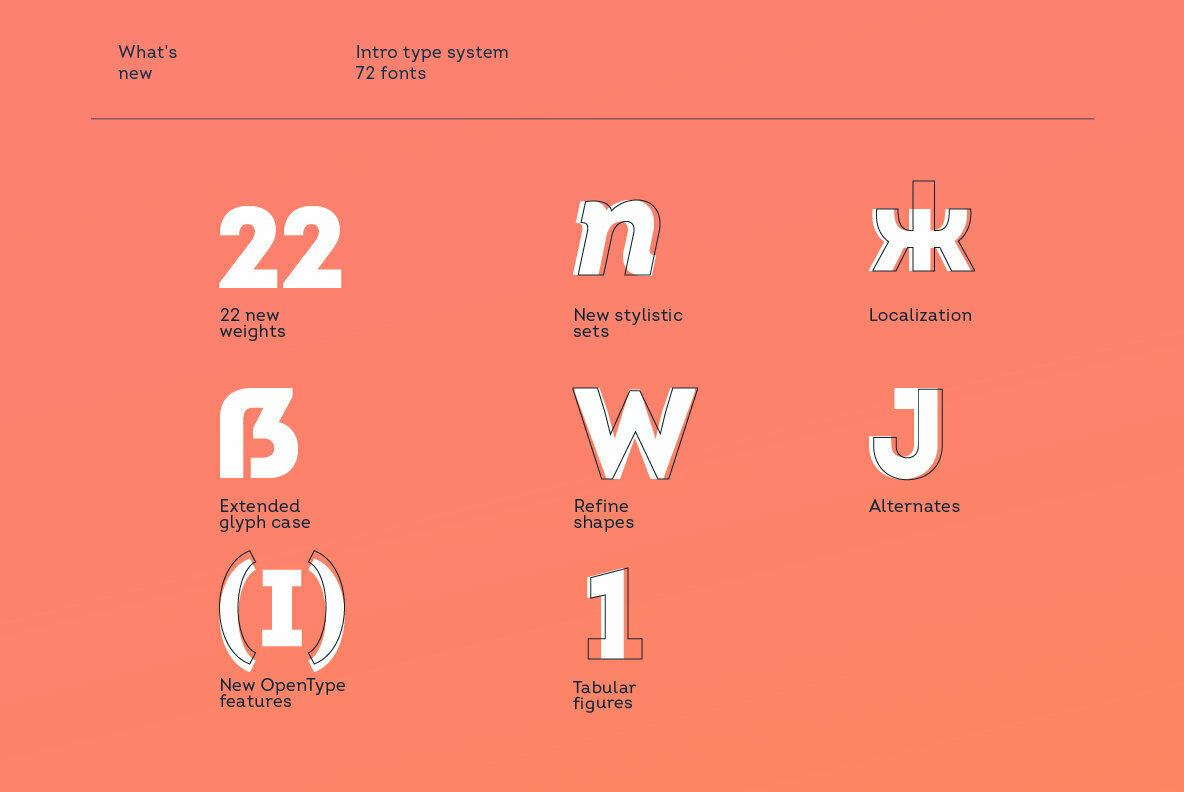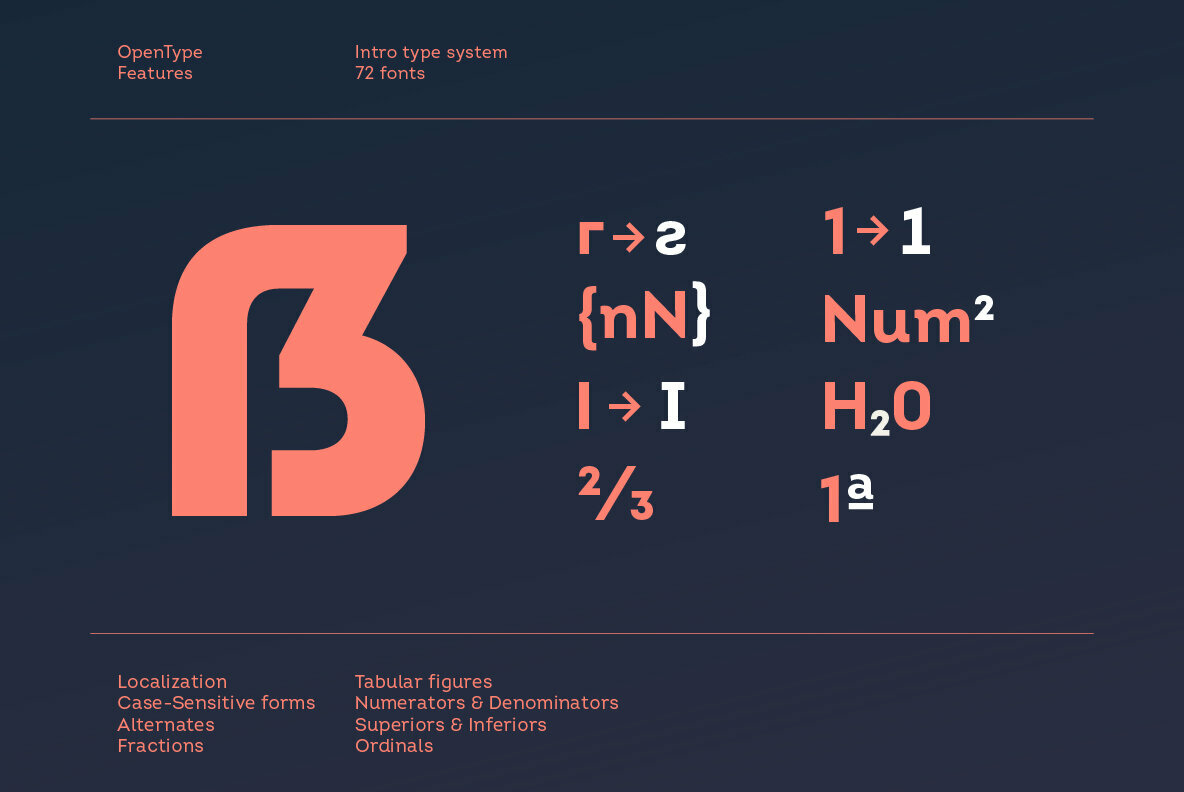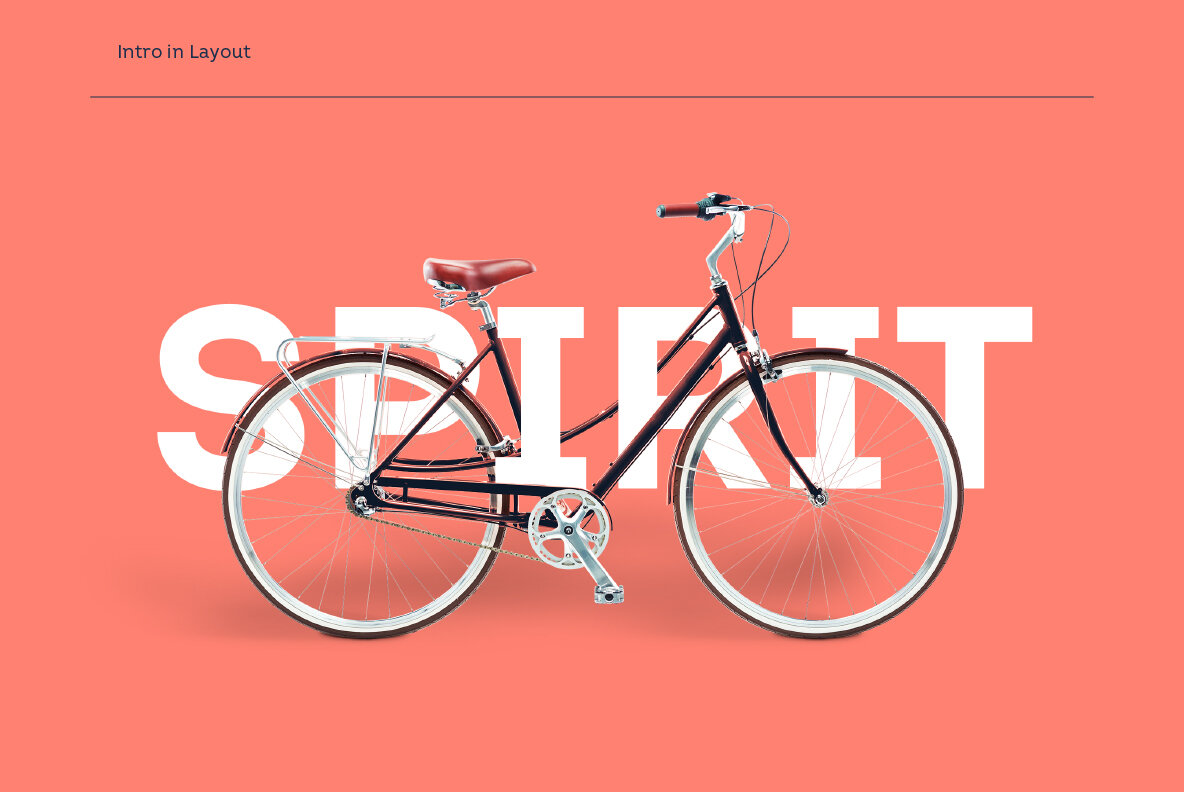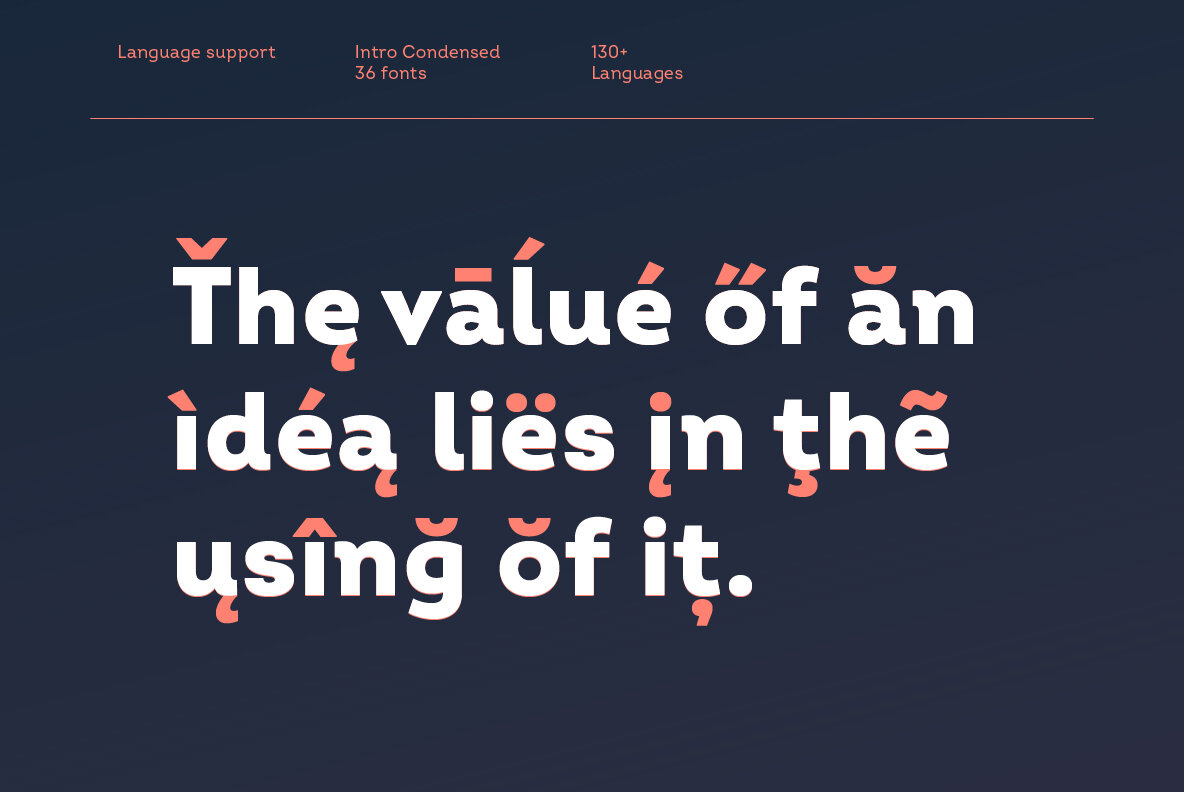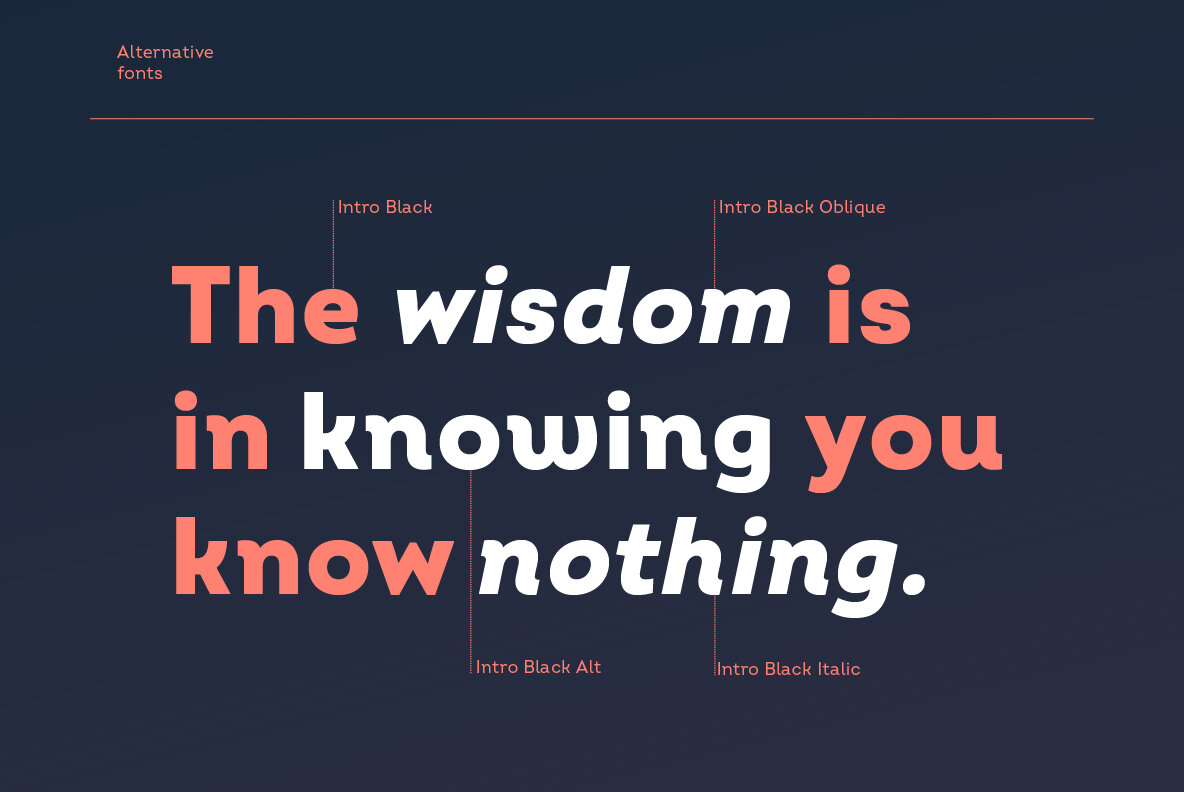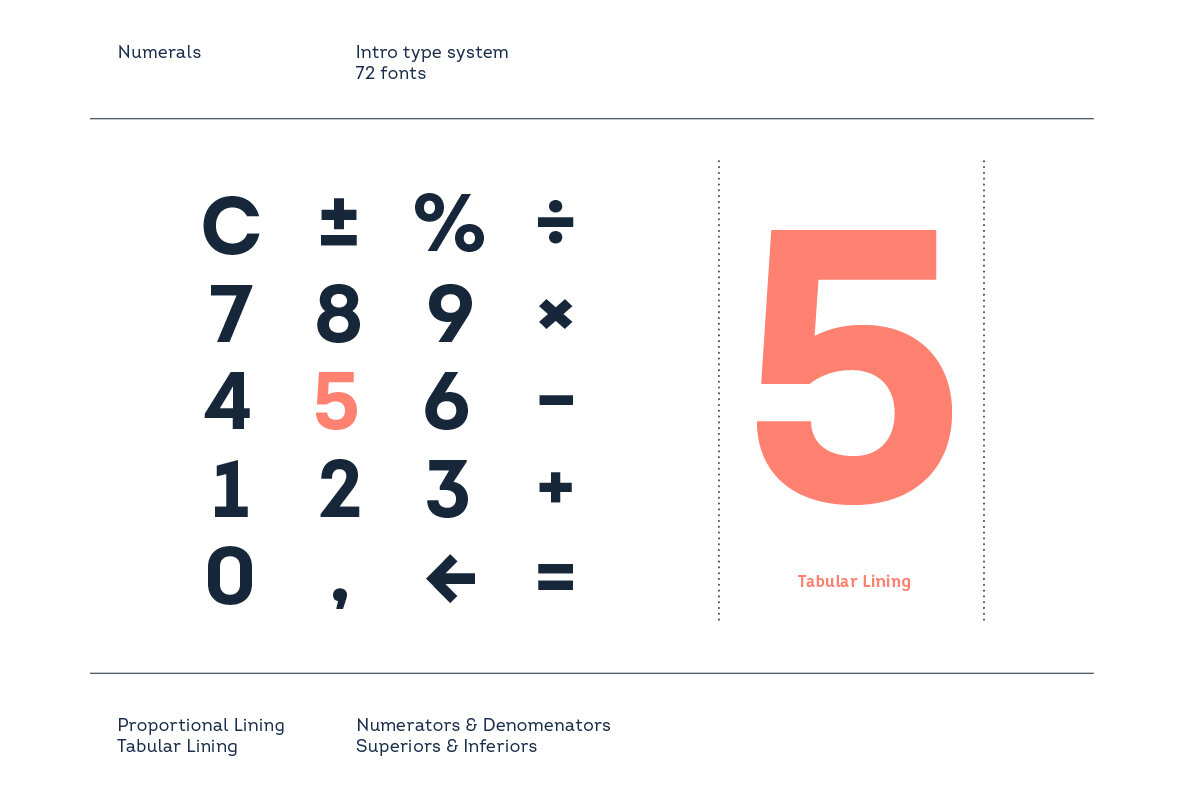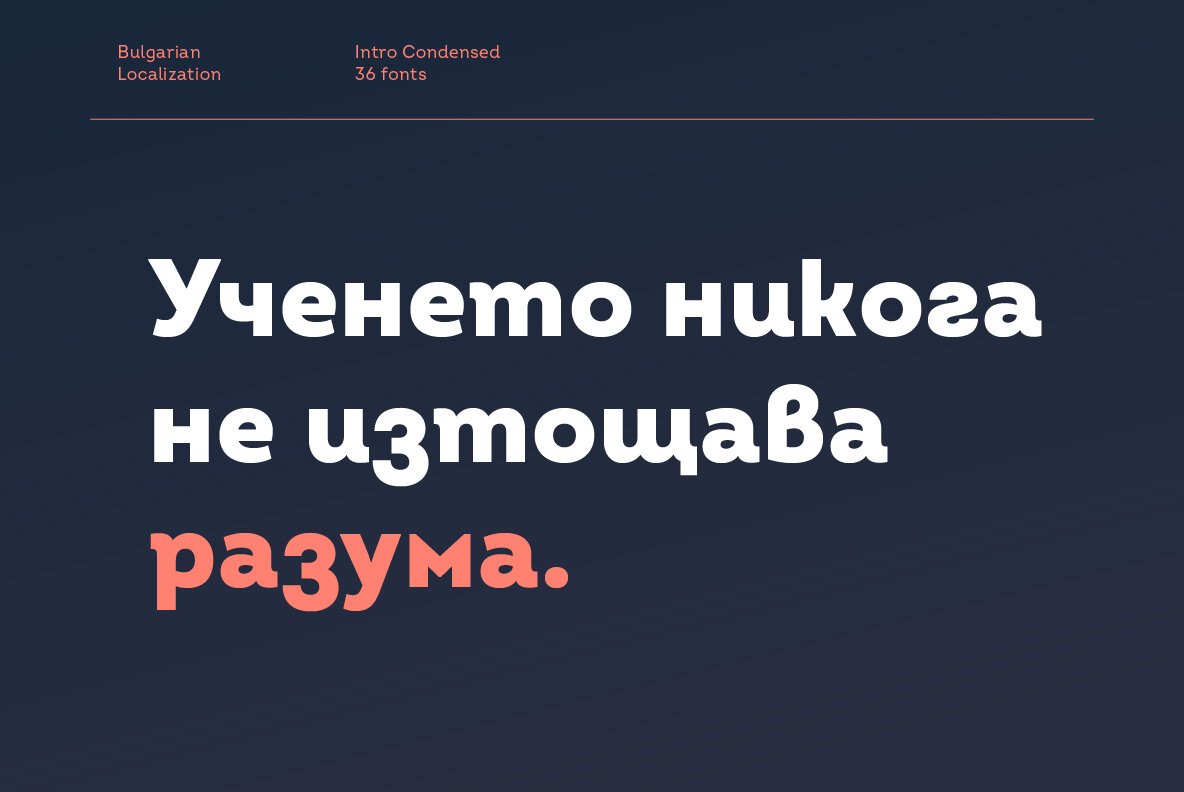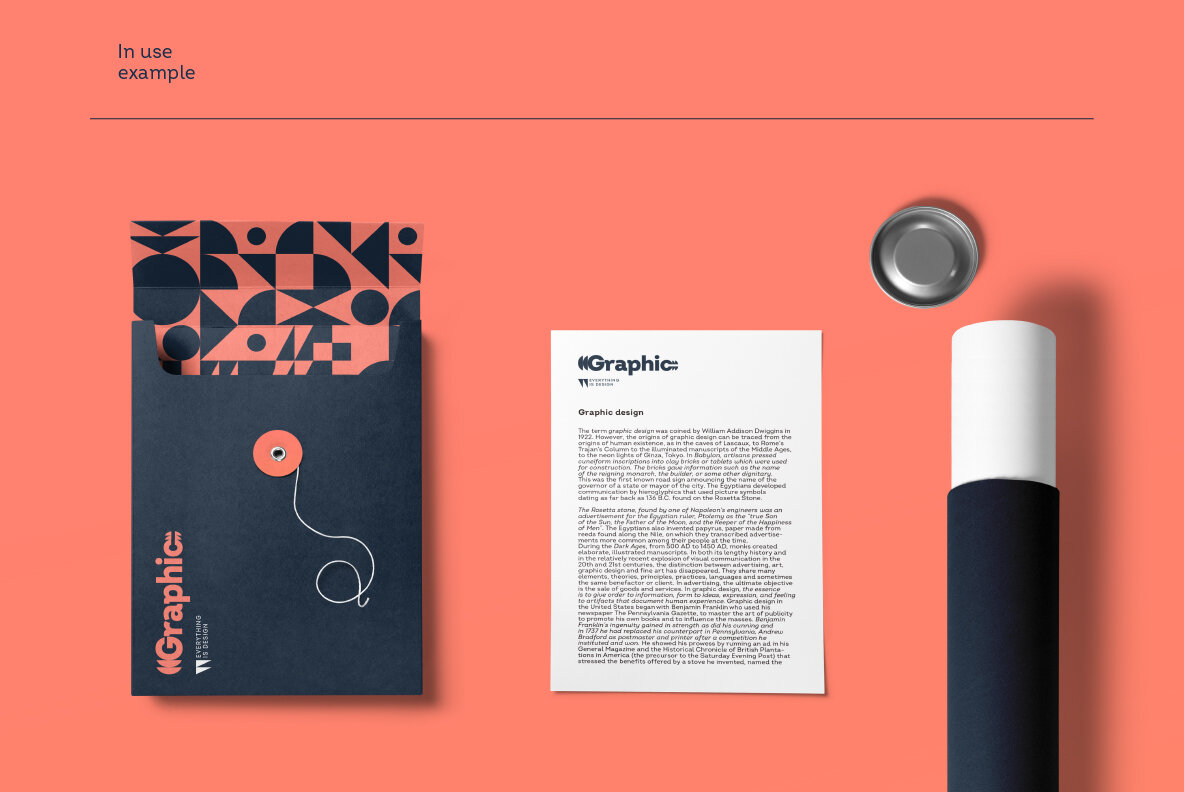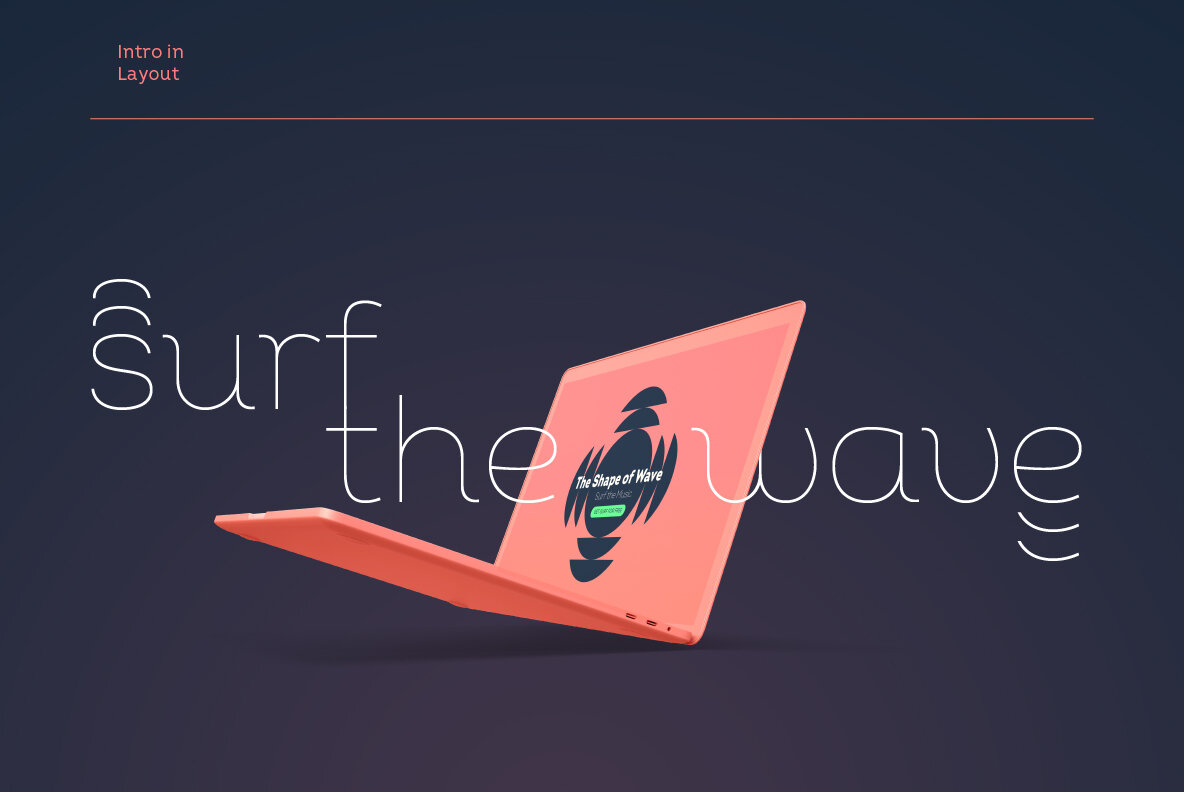
The Intro font family consists of 26 unique font styles and weights. The family is characterized by excellent legibility both in print and on the web, a well-finished geometric design, optimized kerning, etc.
Foundry: Fontfabric
The Intro font family consists of 26 unique font styles and weights. The family is characterized by excellent legibility both in print and on the web, a well-finished geometric design, optimized kerning, etc. Intro is most suitable for headlines of all sizes, but it does well in a variety of text lengths as well. The font’s various styles give it the versatility necessary to meet any type of graphic design challenge — web, print, motion graphics, etc. — and make it perfect for t-shirts, posters, and logos.